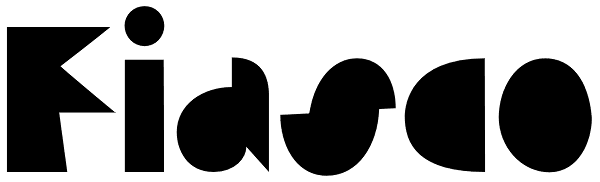
Fiasco
Extremely influenced by the new rave trend, Fiasco is a reflex of it's excesses. Way too many elements, bright neon colors, and that not-knowing-when-to-stop sort of behavior. Acid House aesthetic remixed by the nu school DJs. Neon Flamboyant.